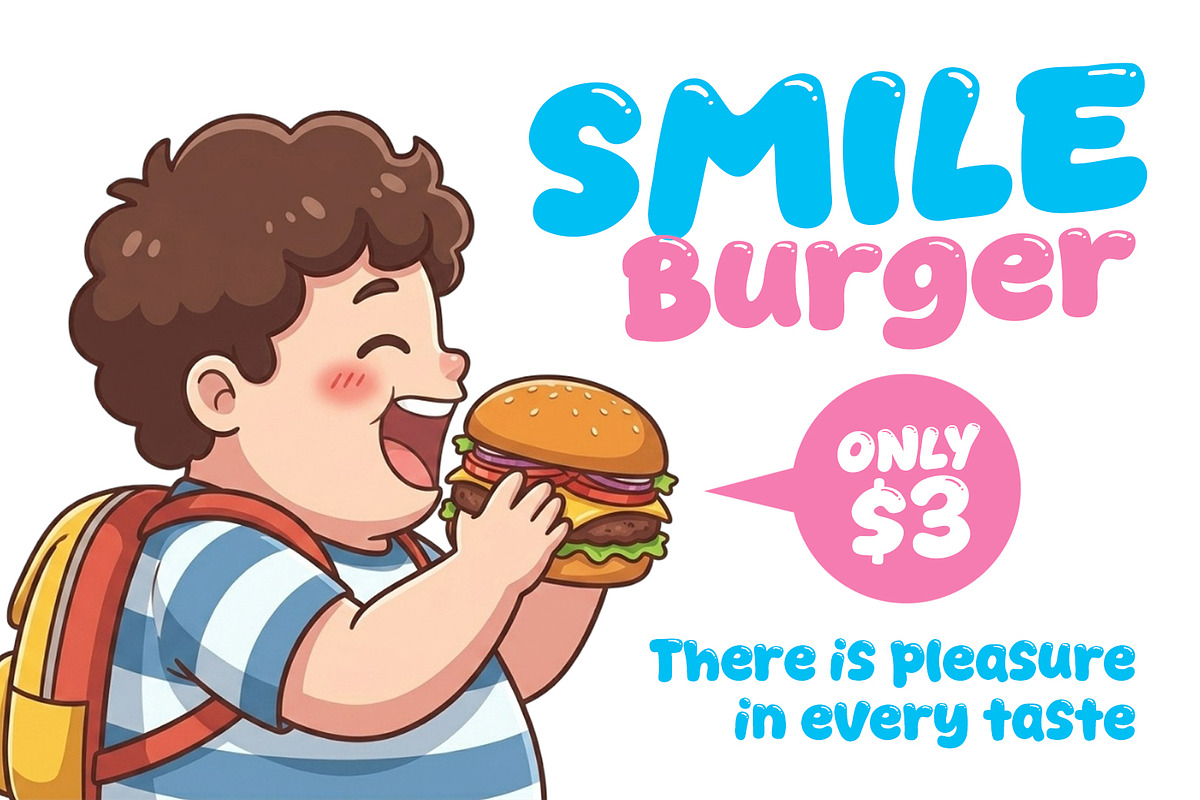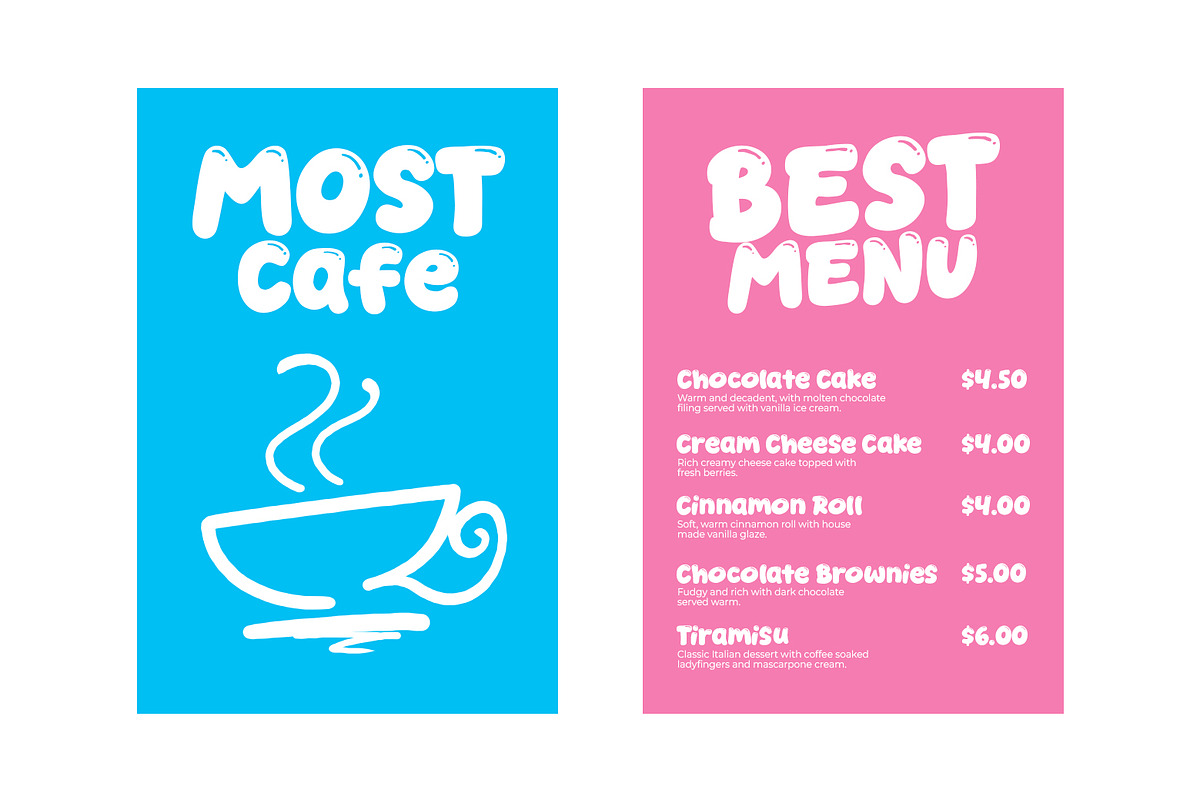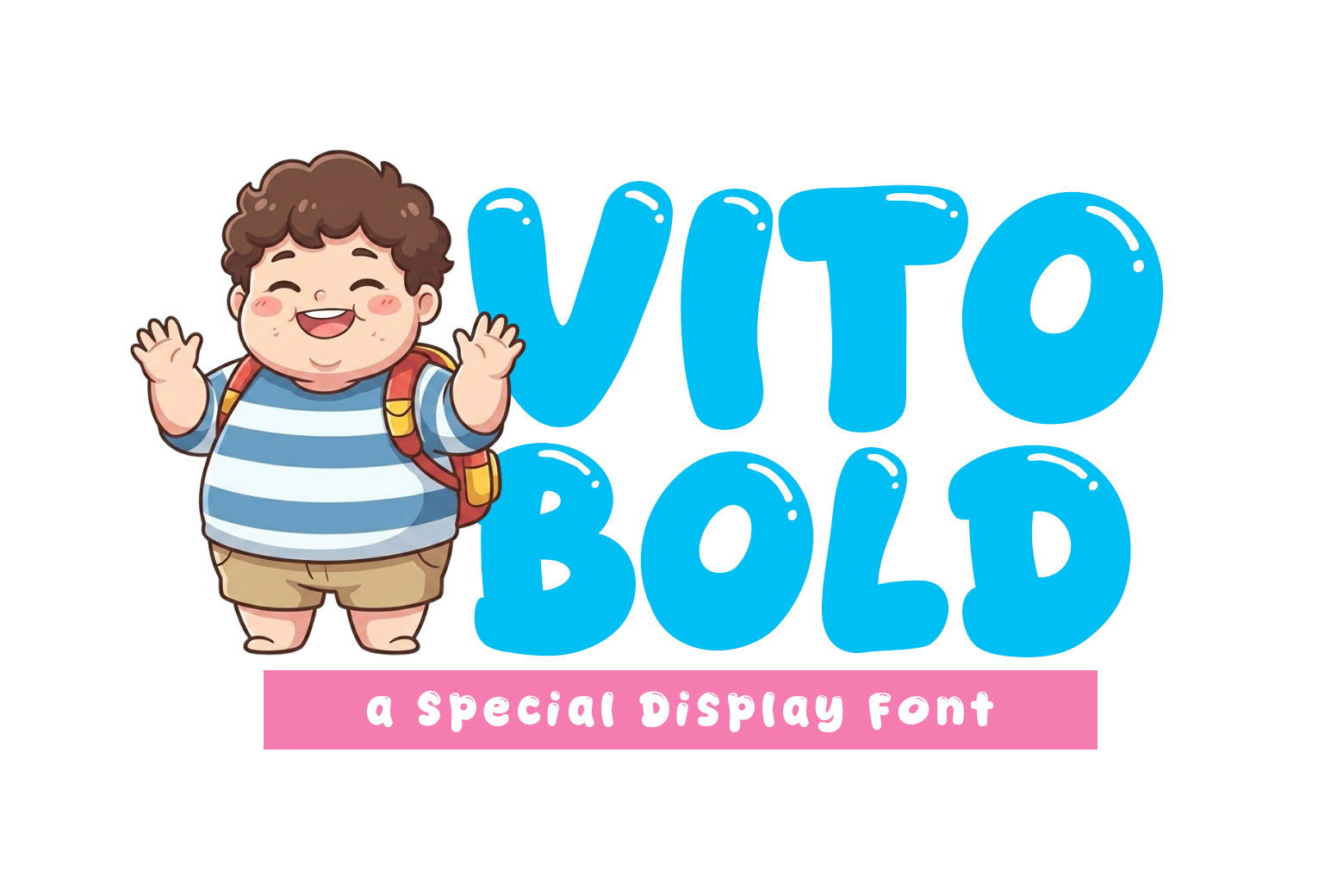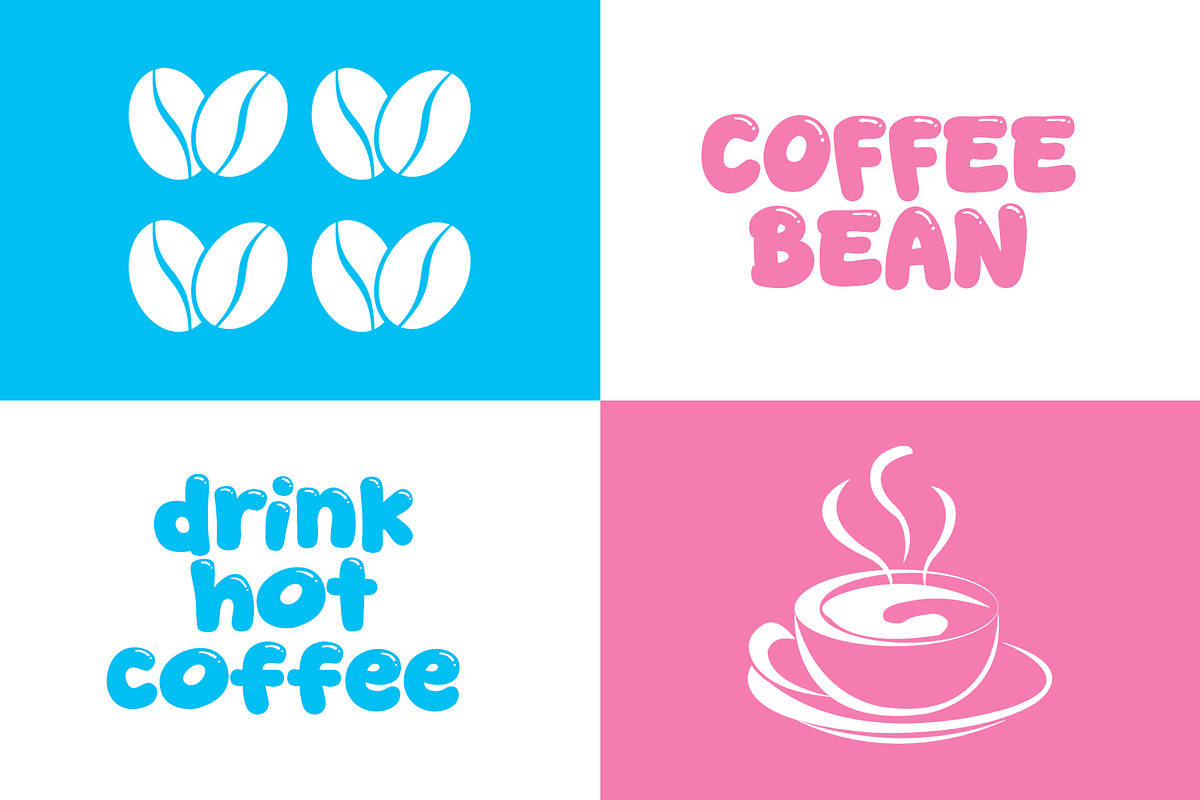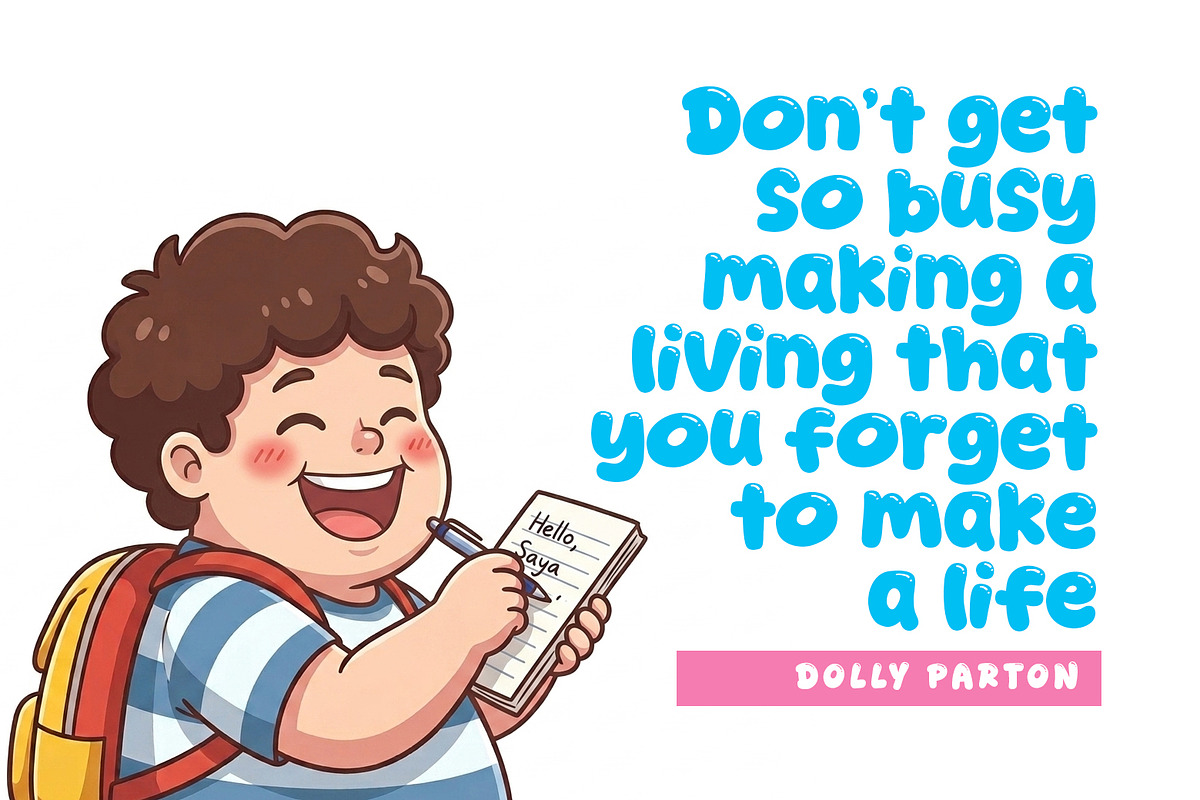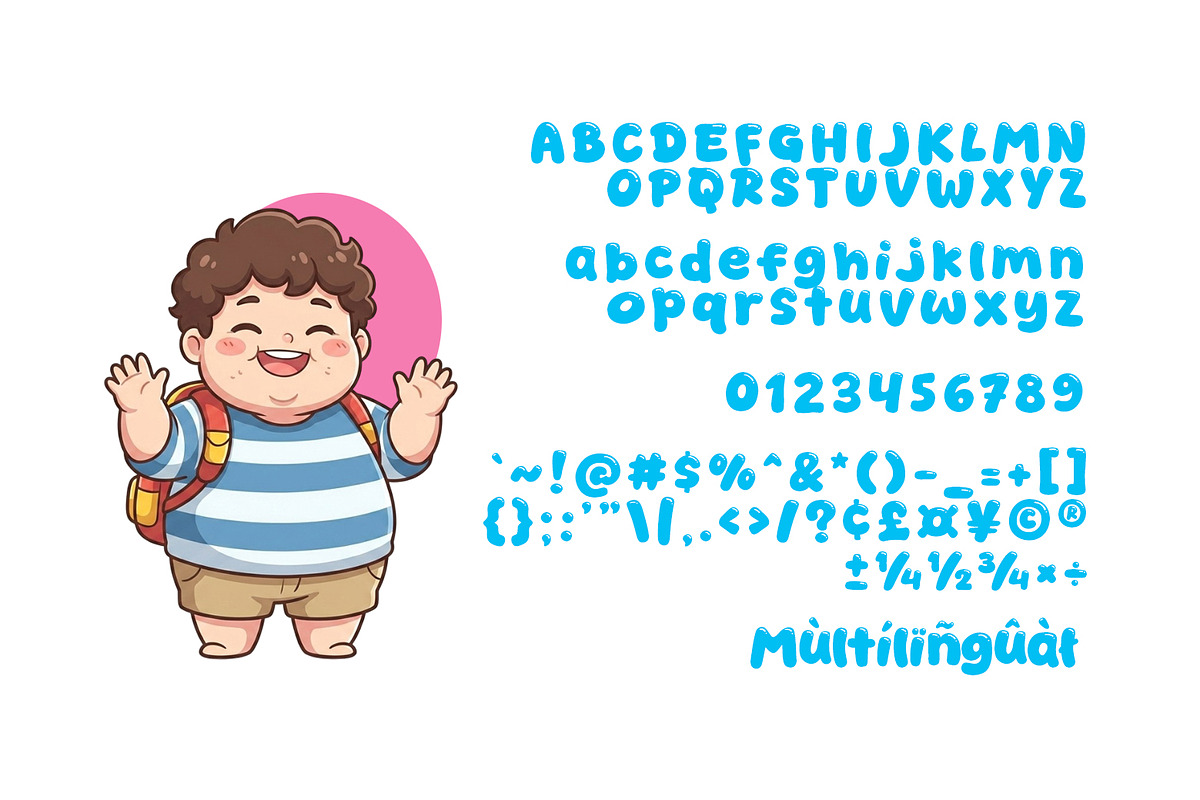
Vito Bold - Cozy & Display Font
Introducing, Vito Bold font a fun display typeface with cheerful theme for your fun project. Vito Bold font suitable for logo, branding, greeting card, poster and any design that you create.